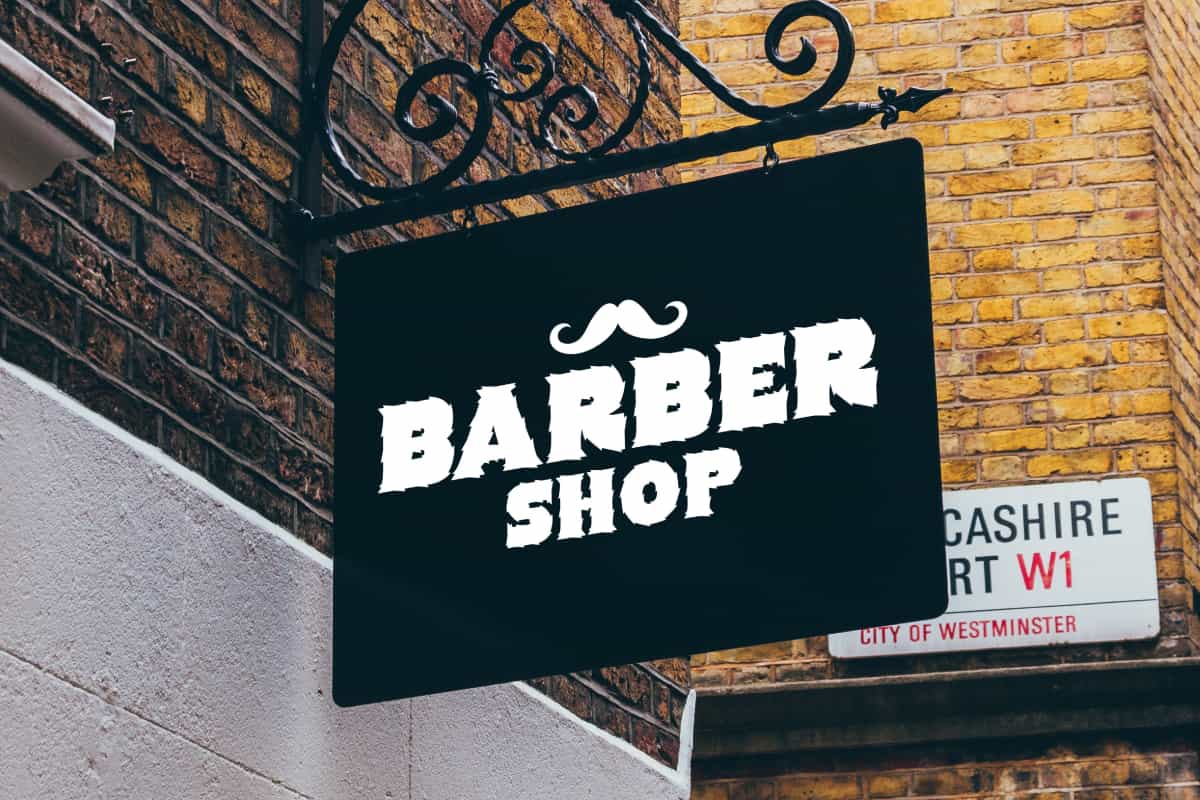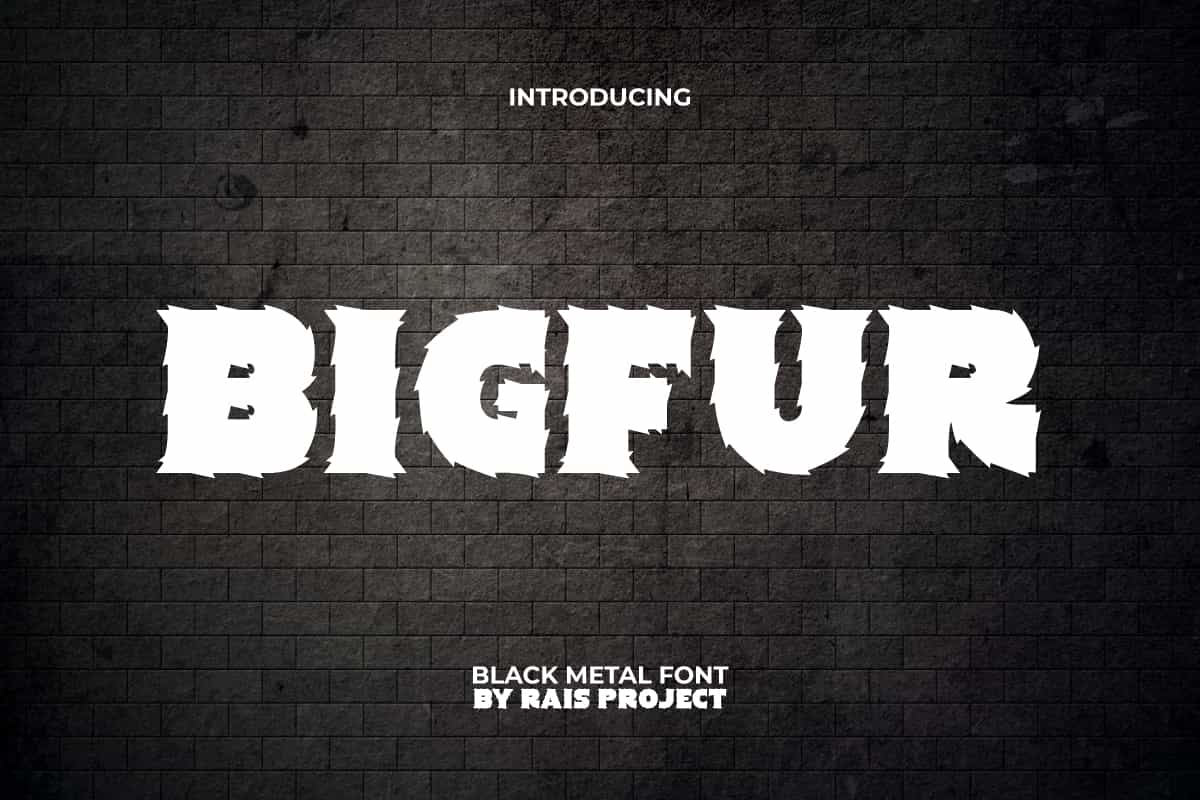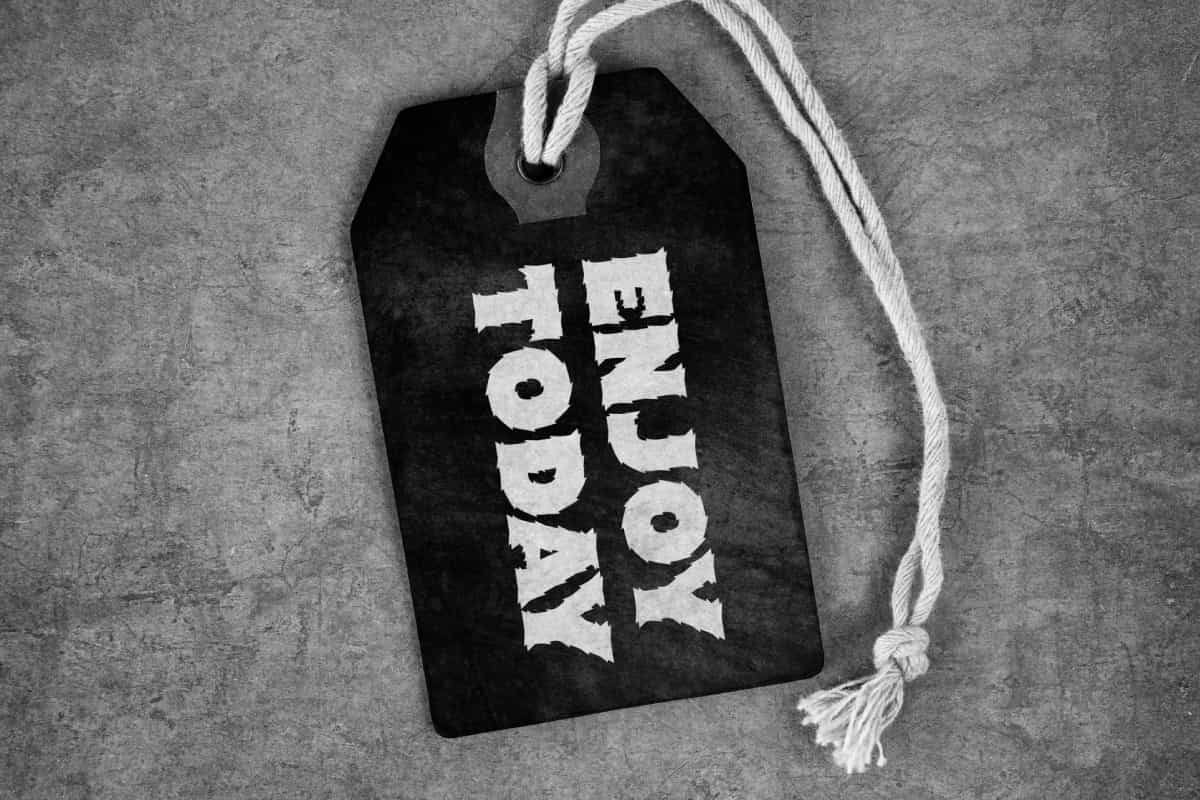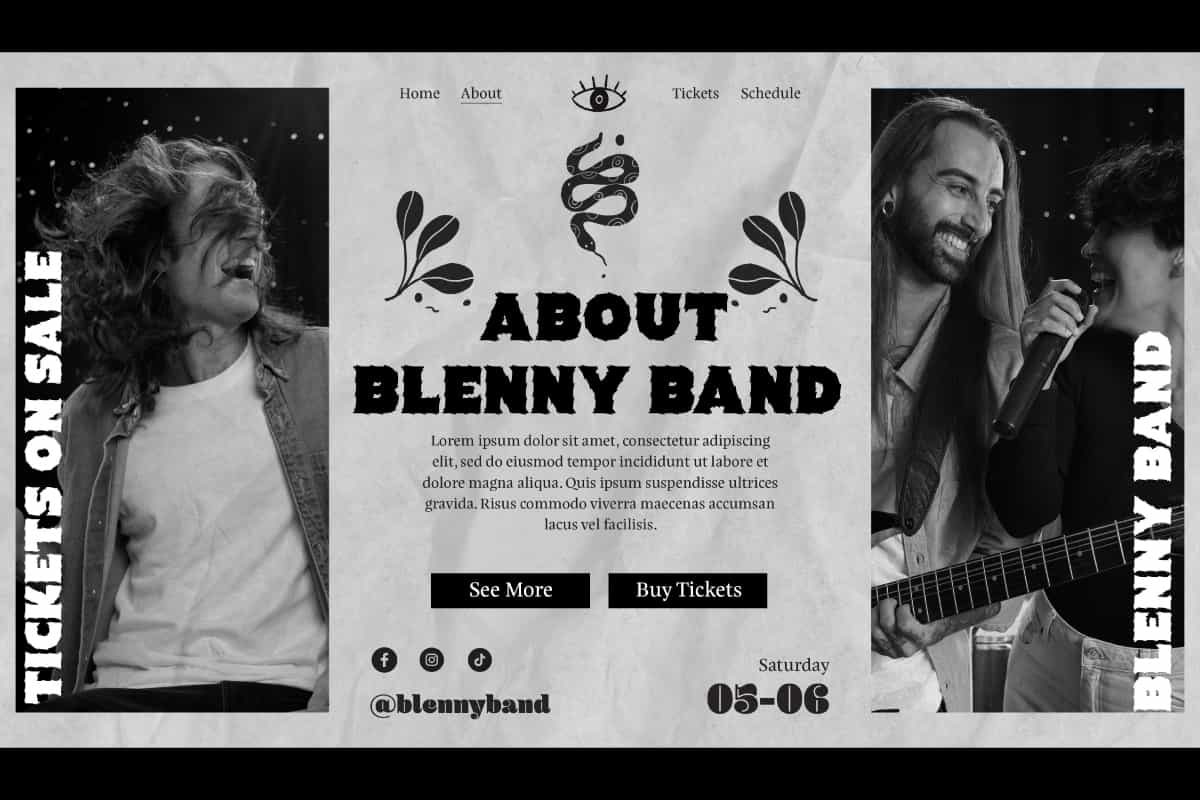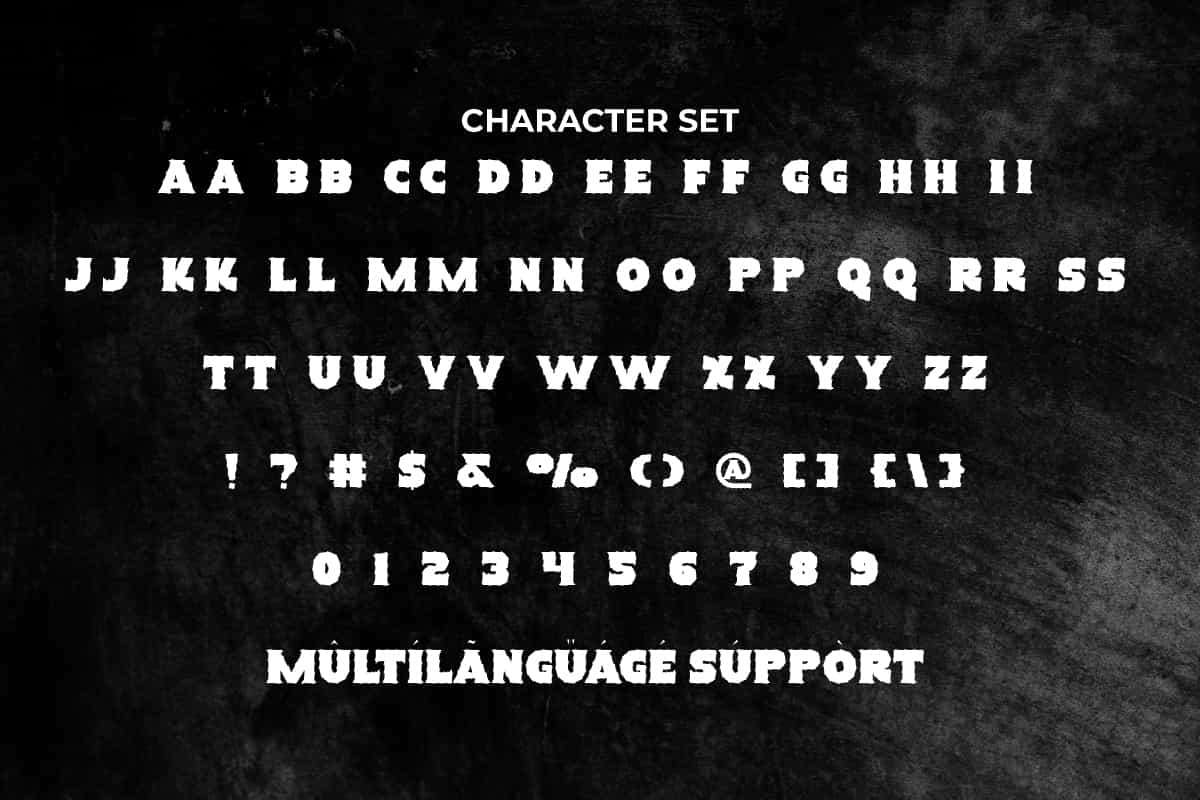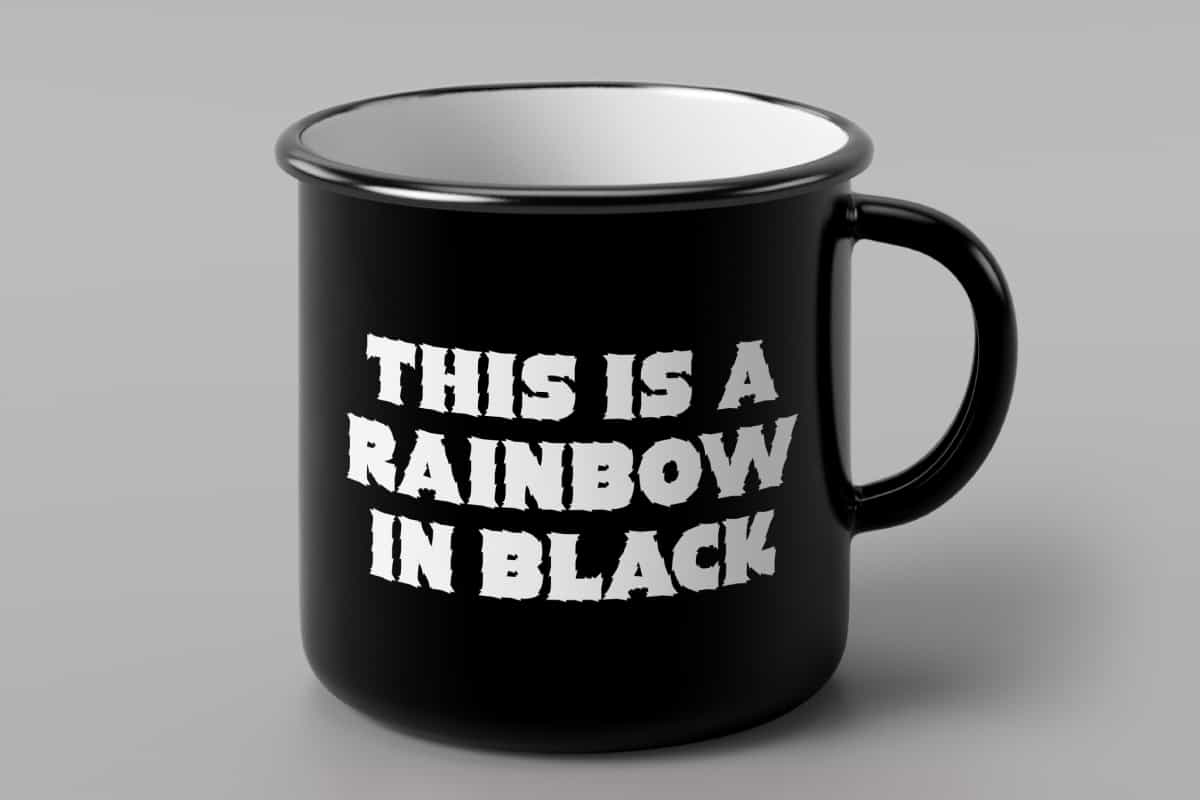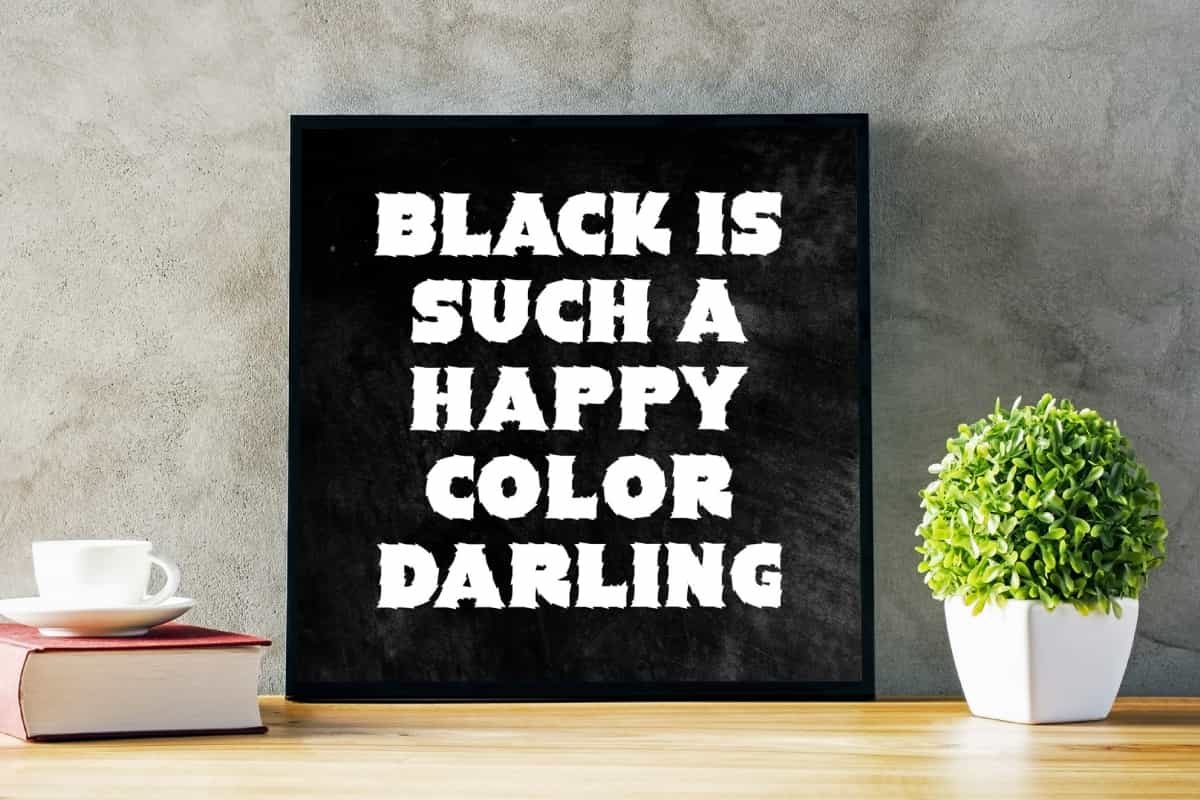
Bigfur Font
Bigfur Font is a fun decorative font inspired from some funny movies cartoon by RaisProject. Create your designs with this font toto give you impressed!
Bigfur Font is fun decorative font inspired from some funny movies cartoon. This font has a look that can be dominant because the characters are thick and have feathers around the letters. It would be perfect for your design, such as custom design, brand image, signage, label, fashion, invitation, menu, poster, stationery, website page, and more!
Bigfur Font includes a full set of ALL CAPS for Uppercase and Lowercase Letters, Numerals, and large range of Punctuation. This creepy font will be suitable for various industries, such as fashion, event or festival, game, movie, photography, printing, publishing, etc.